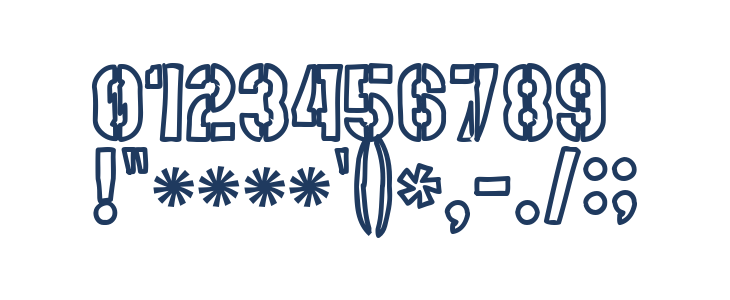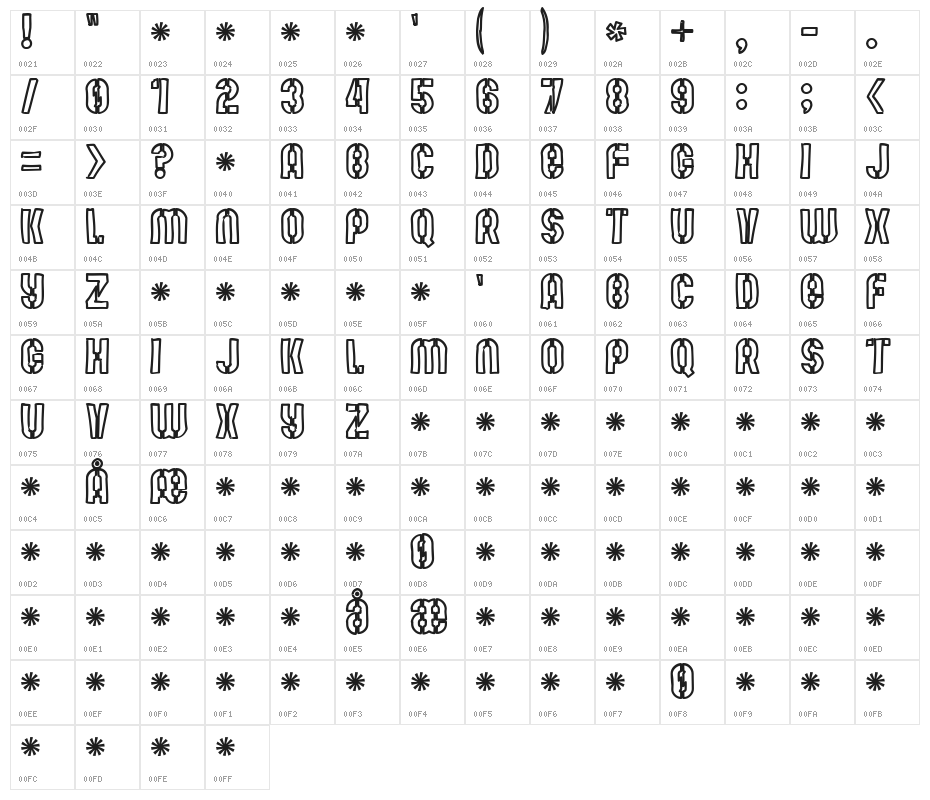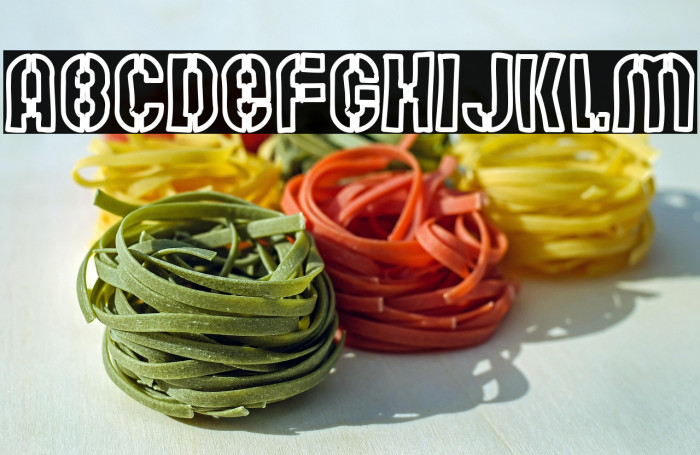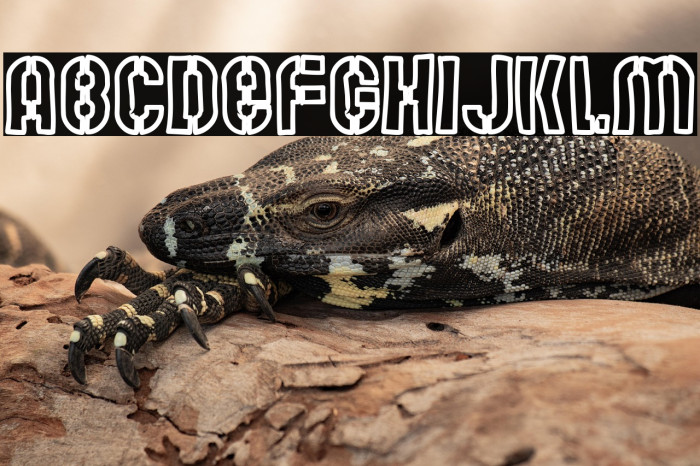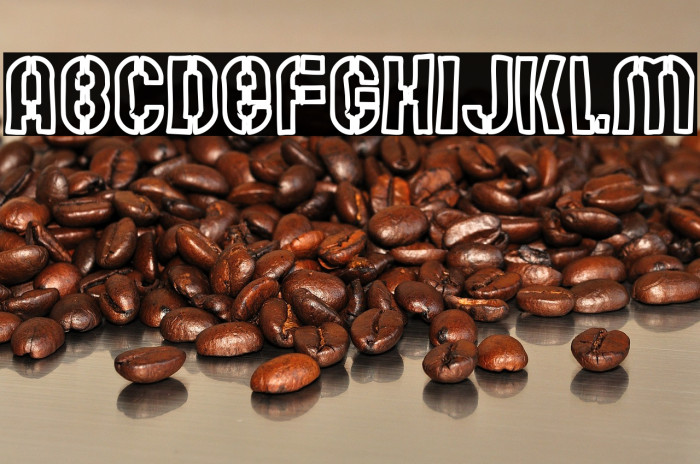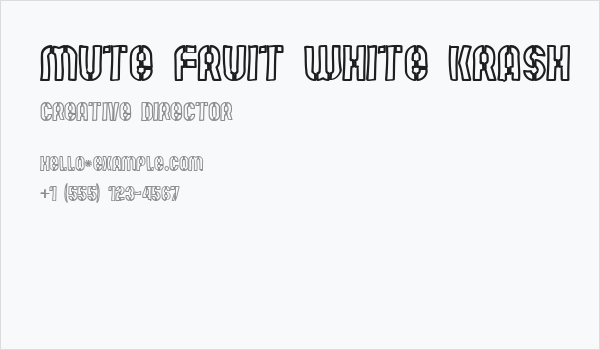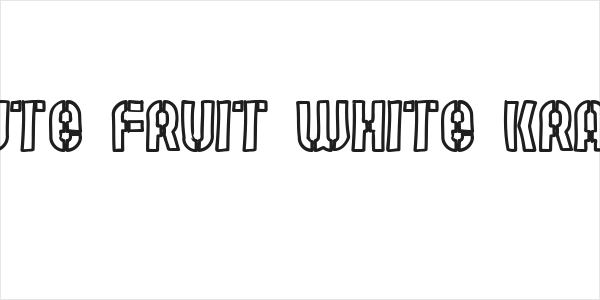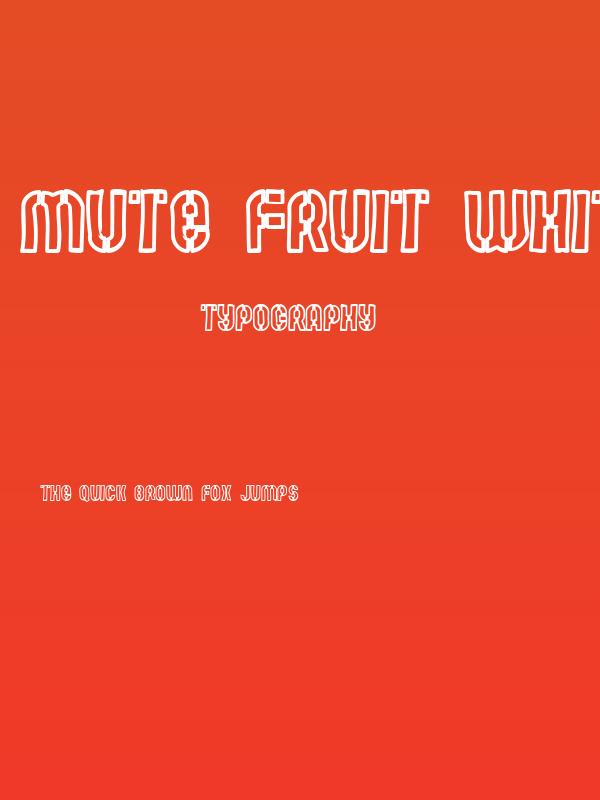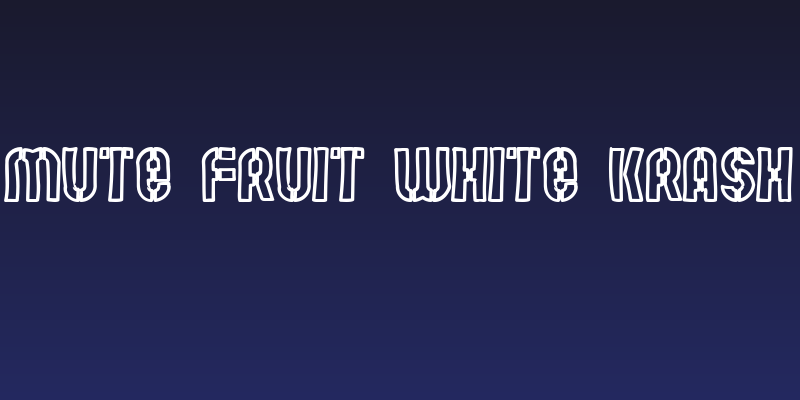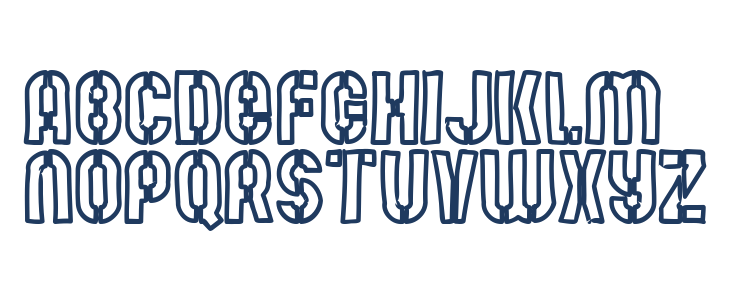
Mute Fruit White Krash Font
Mute Fruit White Krash Description
This font features a bold, playful design with a unique outline style that gives it a three-dimensional appearance. The characters are uppercase and lowercase with a consistent thickness, creating a cohesive look. The numbers and special characters maintain the same bold outline, ensuring uniformity across all glyphs. The font's distinct style makes it ideal for eye-catching designs, offering a modern twist with a hint of retro charm. Its boldness and unique structure make it stand out, perfect for projects that require a strong visual impact.
| Proposed Projects | Ideal for posters, logos, headlines, and any design needing a bold, eye-catching font. |